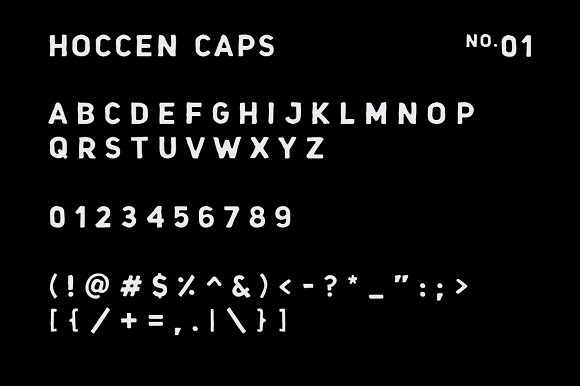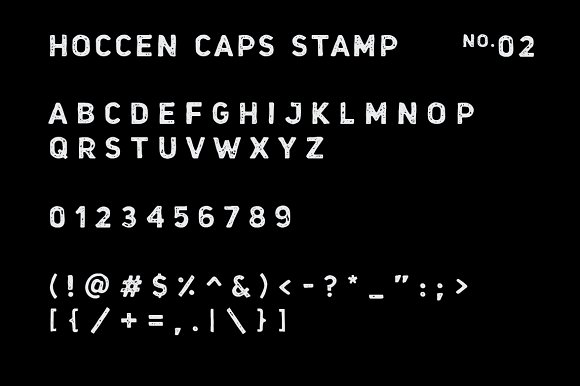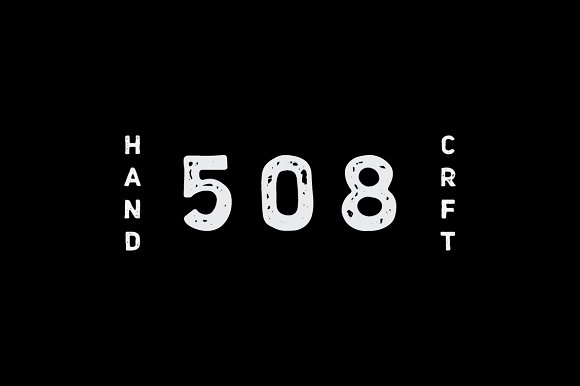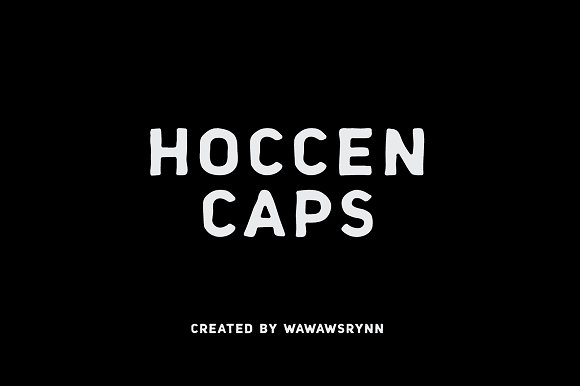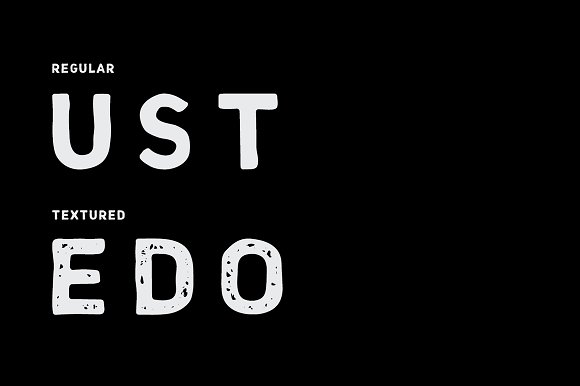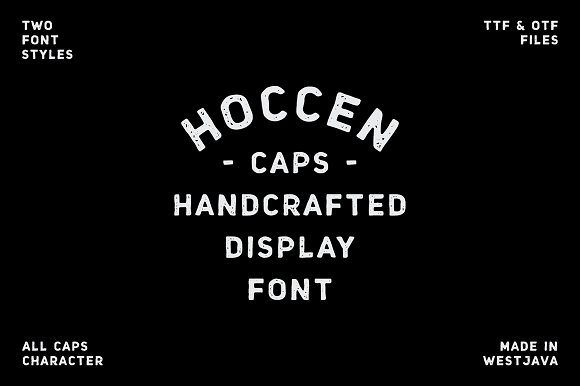
HOCCEN CAPS Display Font
HOCCEN CAPS is a very simple handcrafted font, it’s rounded corner and wide stroke. It consists of allcaps letters, include regular and the stamp / textured font style.ư